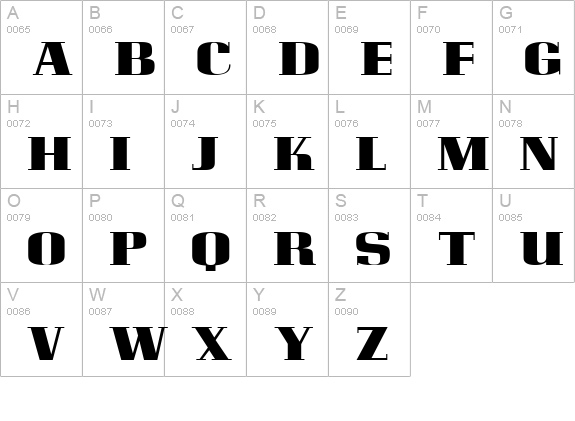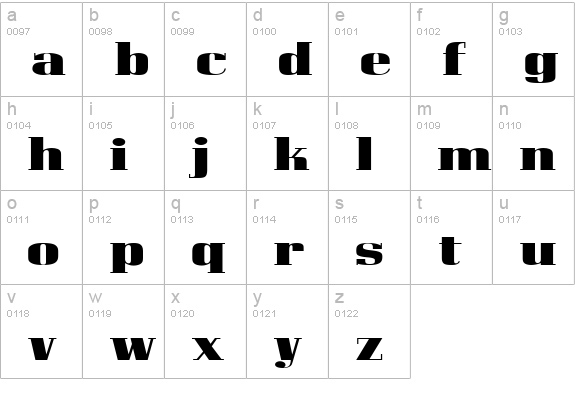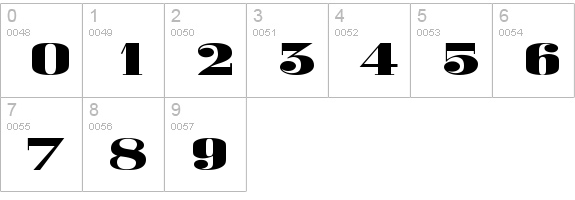
Introducing Galaxy Roman, a stunning typeface that effortlessly combines elegance and versatility. This font is perfect for those seeking a touch of timeless sophistication in their designs. With its graceful serifs and balanced letterforms, Galaxy Roman exudes a sense of classical beauty, making it ideal for a wide range of projects. What sets Galaxy Roman apart is its unique ability to seamlessly adapt to various design contexts. Whether you're crafting a brand logo, designing a website, or creating eye-catching print materials, this font will elevate your work to new heights of professionalism and refinement. But what truly makes Galaxy Roman exceptional is that it is available for free! That's right, you can now download and enjoy this exquisite font without any cost at FontsMarket.com. This generous offering allows designers, artists, and enthusiasts alike to access and utilize the beauty of Galaxy Roman without any financial barriers. Don't miss out on the opportunity to enhance your projects with the elegance of Galaxy Roman. Download this font today from FontsMarket.com and experience the seamless blend of classic charm and contemporary design. Elevate your creations and captivate your audience with Galaxy Roman, the epitome of timeless sophistication, now freely available for you to enjoy.